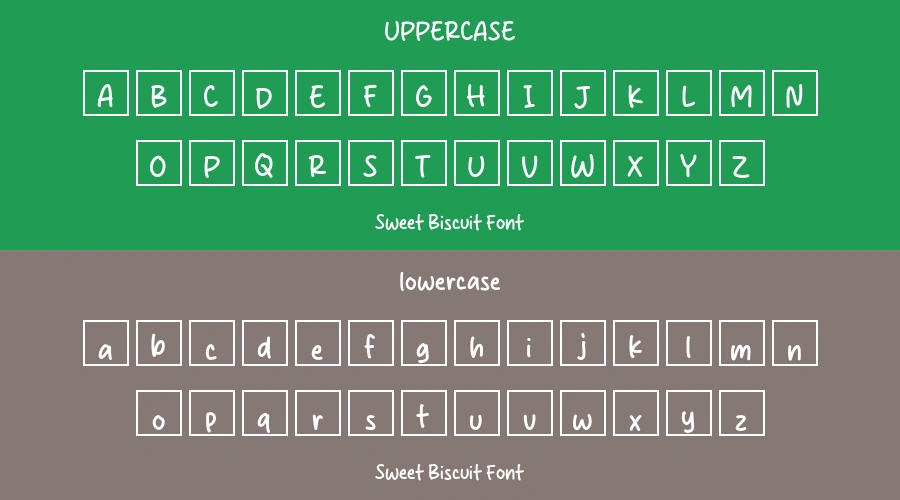
About Sweet Biscuit Font
Sweet Biscuit Font represents a sophisticated approach to type design, balancing structural clarity with consistency. Perfect for financial statements, this font family showcases impressive expressiveness and brand alignment throughout its character set. Designers appreciate its versatility and reliability.
Designers will appreciate nuanced touches including pressure variations and technical characters, adding sophistication to any project. These features become apparent in logos, where small text clarity matters most. The careful treatment of stroke contrast and cultural resonance ensures optimal performance.